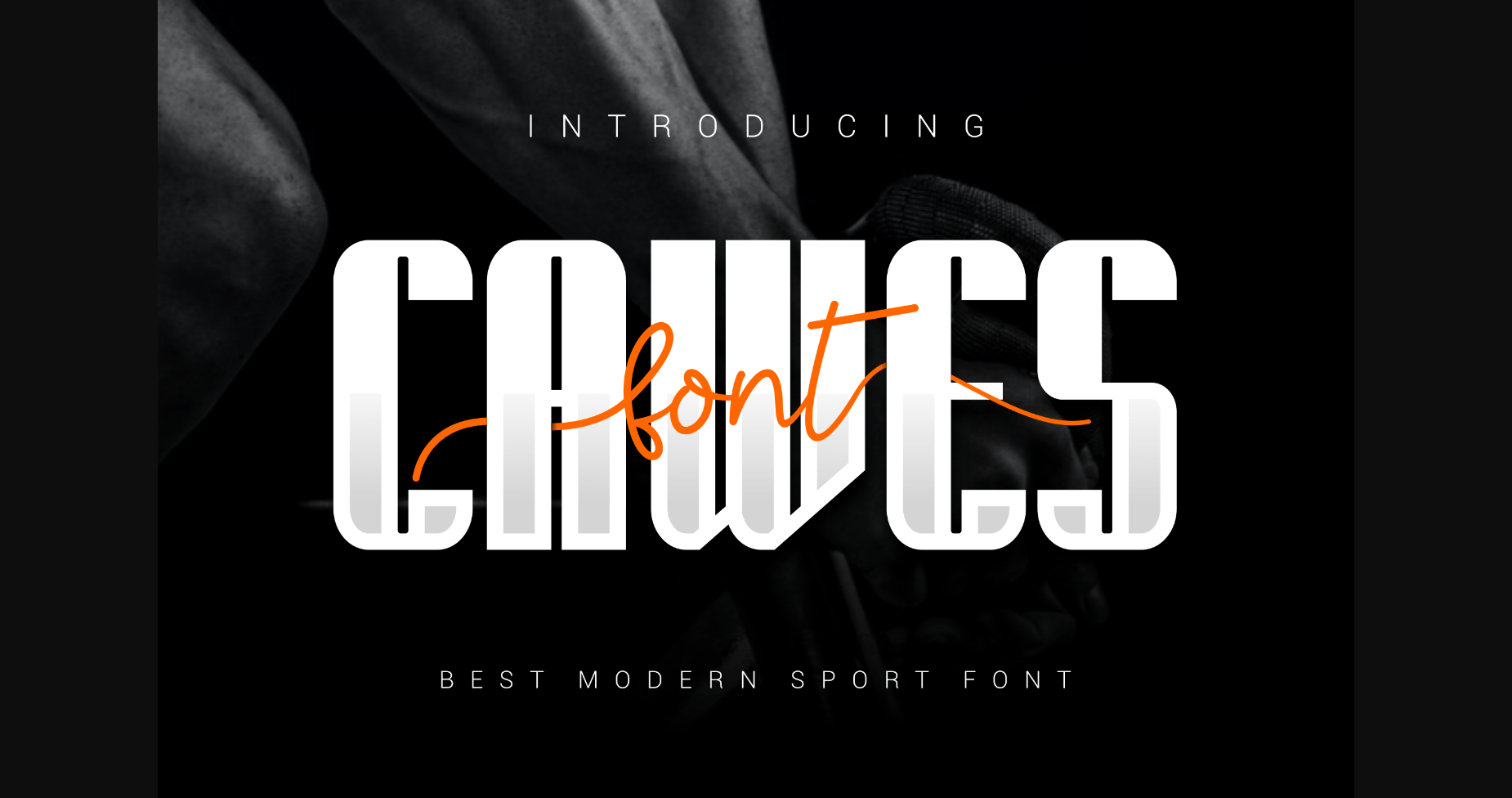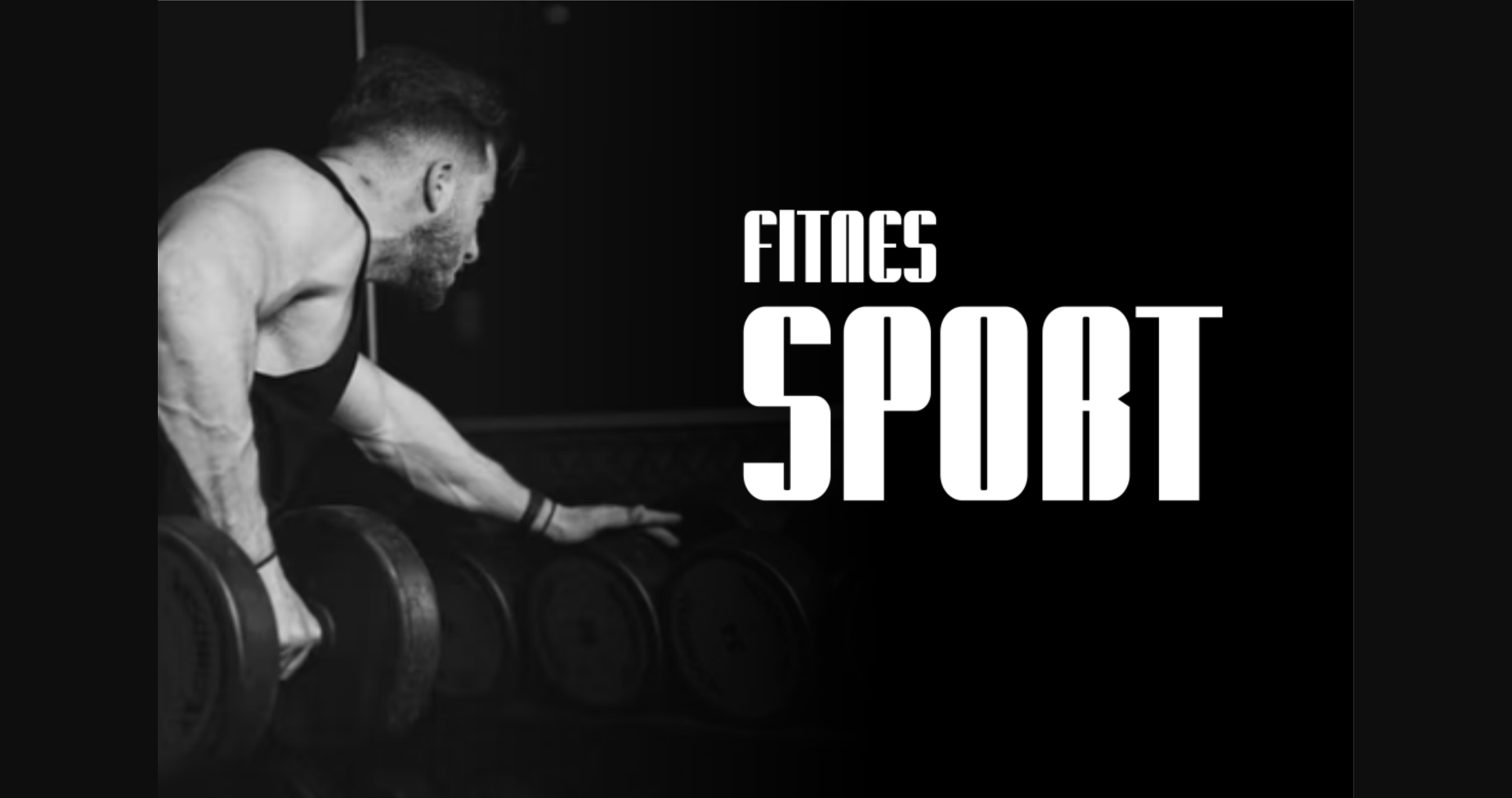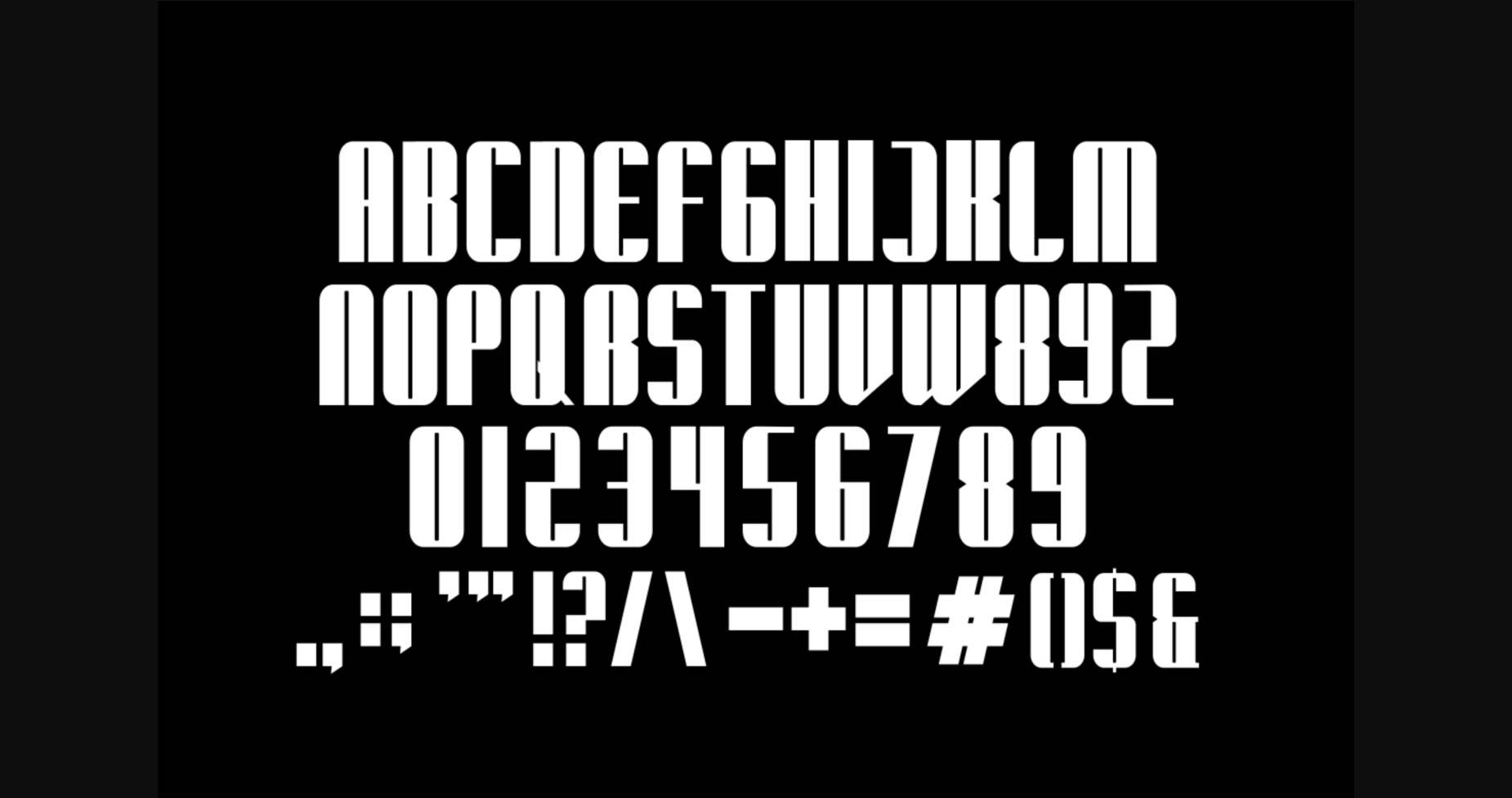
Cawes Font
About Cawes Font
Cawes is a bold and authentic sans serif font suitable for any branding project like logo, t-shirt printing, export, and many more. It looks outstanding in a wide range of contexts.